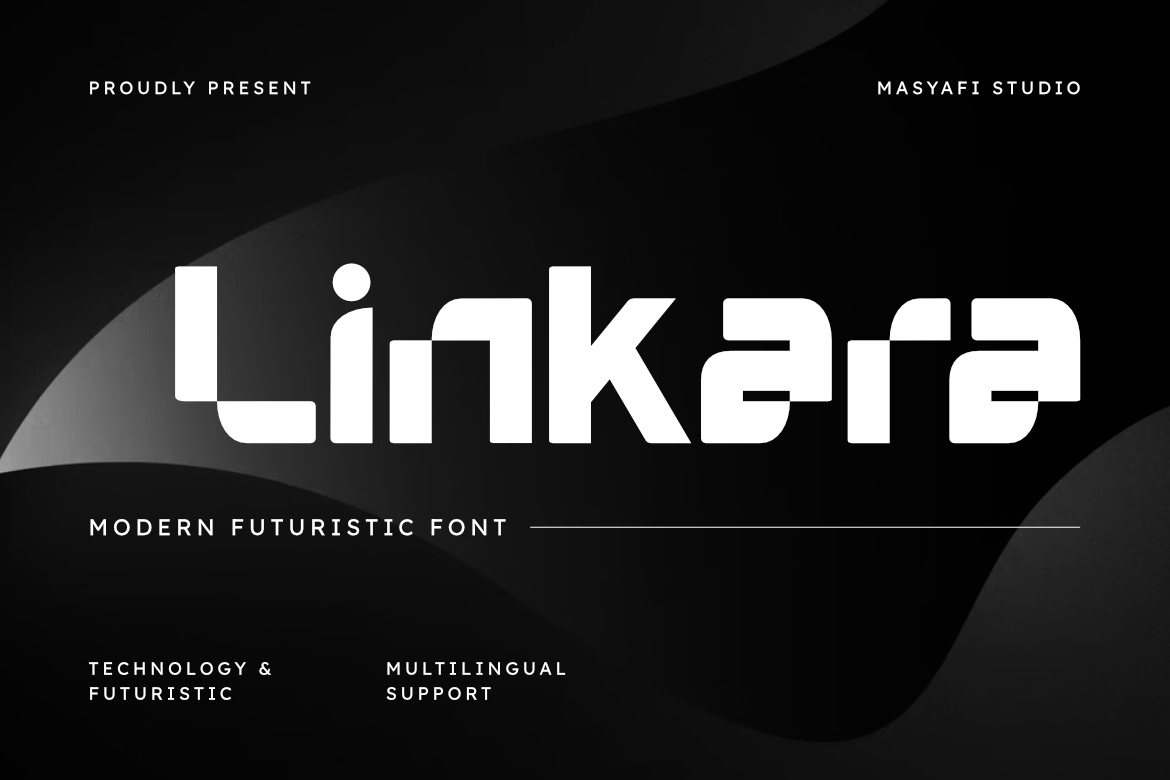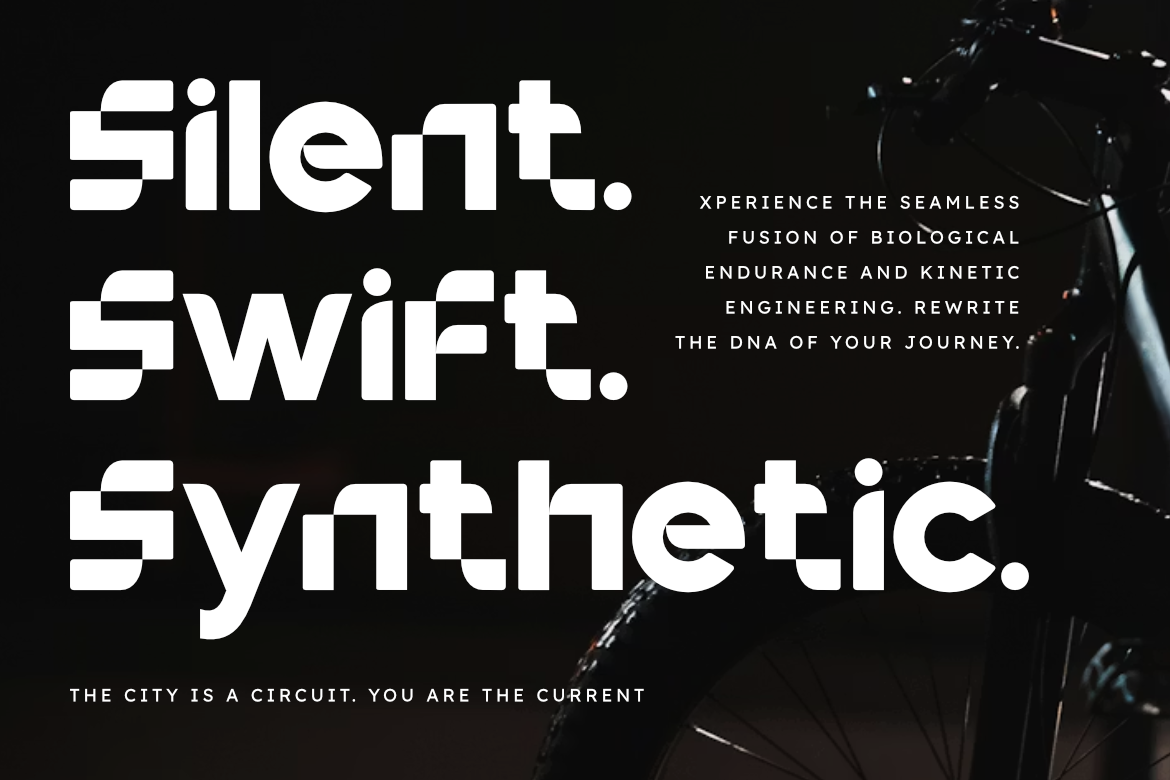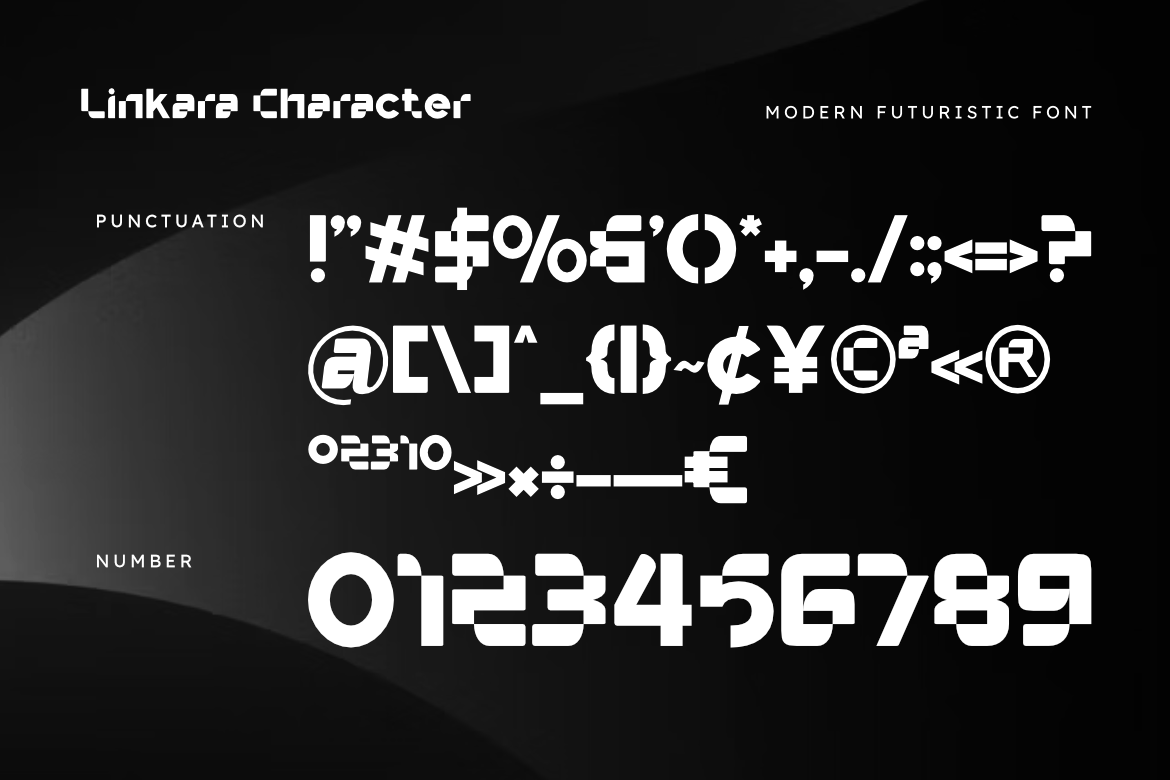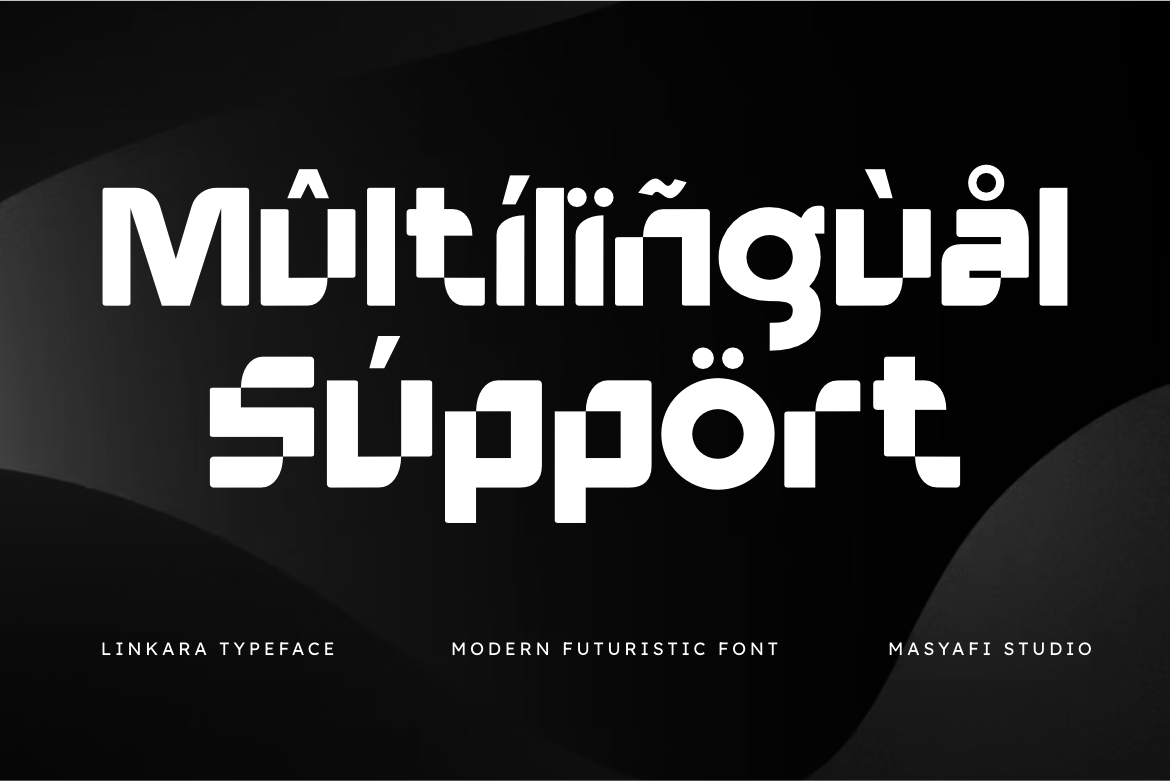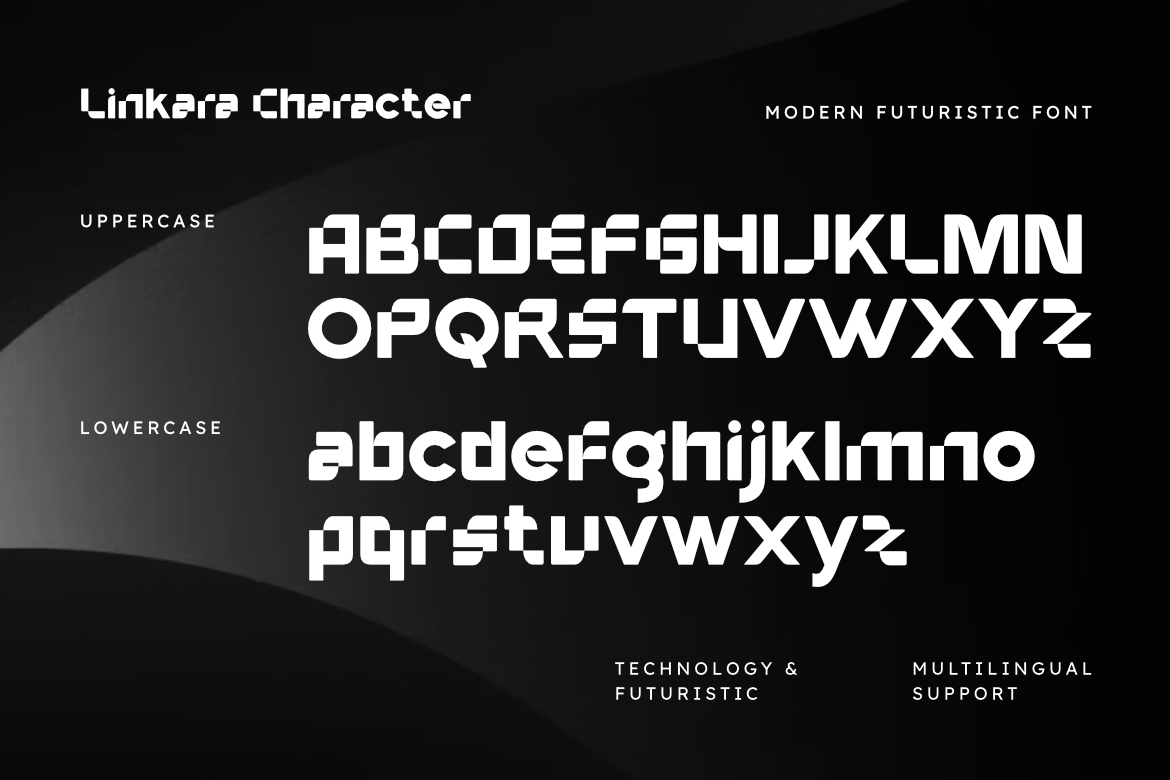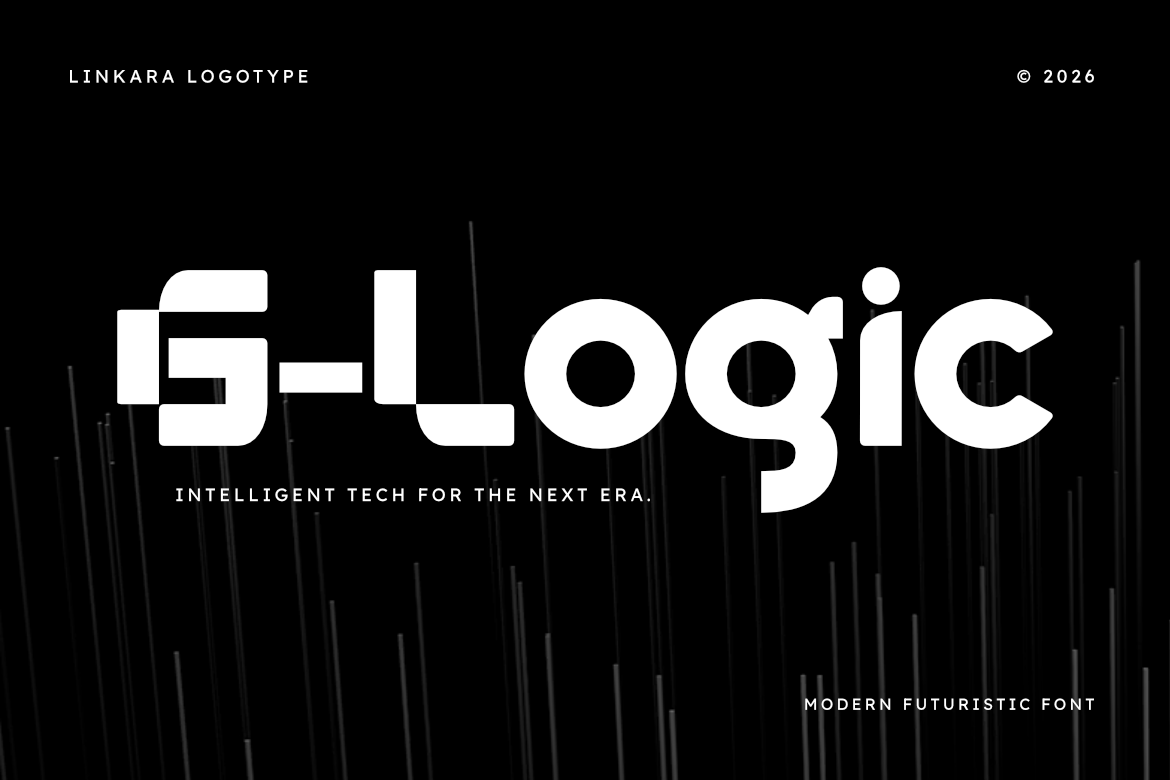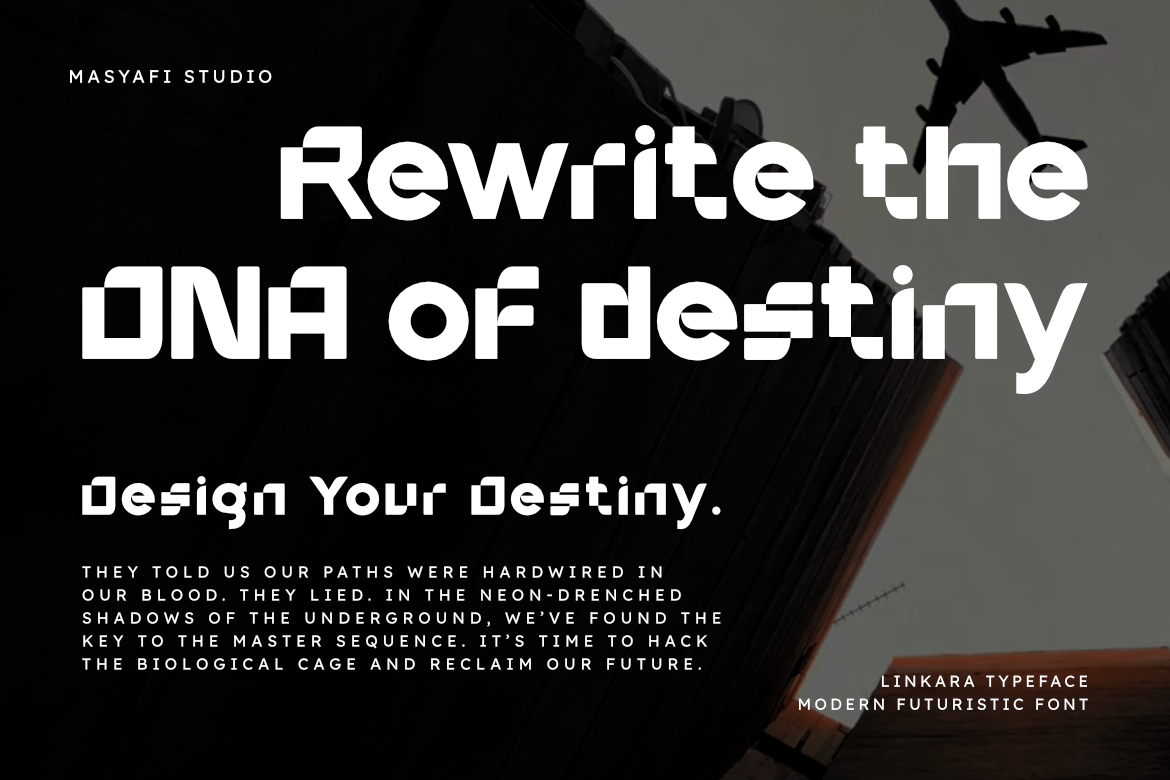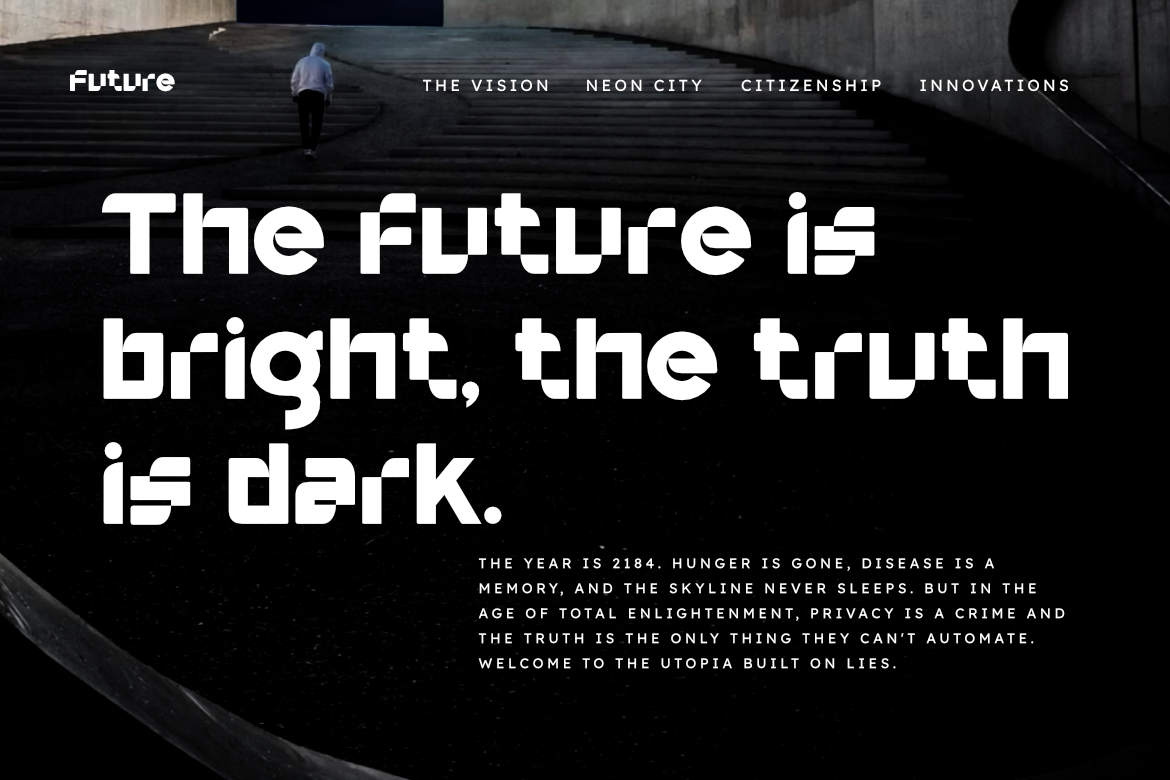
Linkara - Modern Futuristic Font
Futuristic Tech Font for Technology Brand Identity
Linkara is a cutting-edge futuristic font designed to bring a bold, high-tech aesthetic to your creative projects. With its unique geometric stencil-like cuts and balanced proportions, Linkara captures the essence of digital innovation and modern motion.
This font is highly versatile and works perfectly for technology-themed branding, gaming interfaces, sci-fi movie posters, and futuristic UI designs. Its clean and sharp appearance ensures it stays legible even in complex layouts.
Main Features:
- Modern, futuristic, and tech-driven aesthetic.
- Unique geometric letterforms.
- Ideal for branding, logos, and headlines.
- Multilingual support